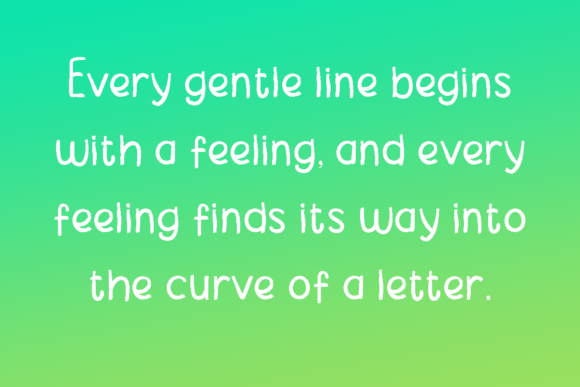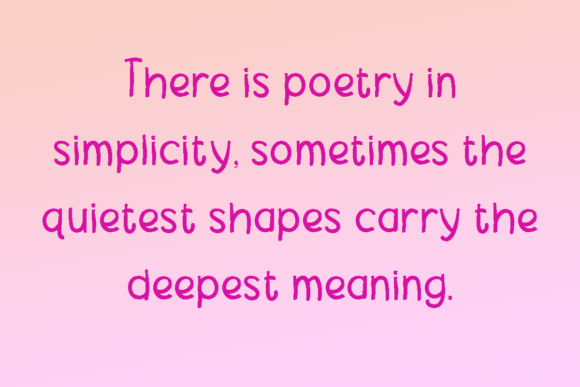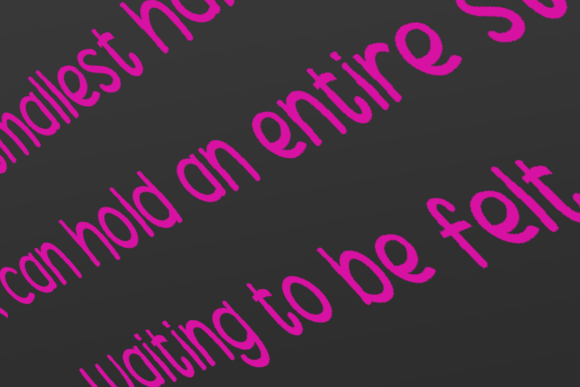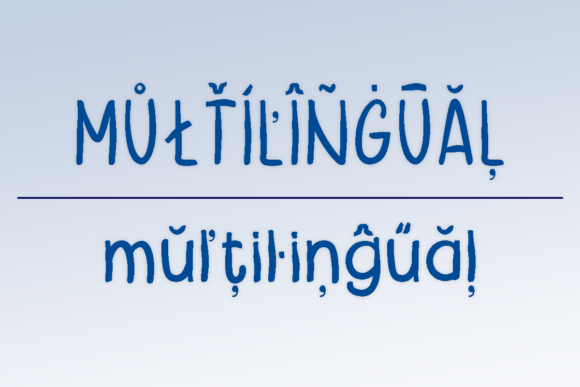
The Perfect Blend of Minimalism and Whimsy
Have you ever stared at a blank page, searching for the perfect font to bring your design to life? It’s a moment we’ve all been there, and it’s a feeling that can be both thrilling and overwhelming. As designers, we’re constantly on the lookout for the perfect combination of style and readability. And that’s where the Bright Flow Font comes in – a beautiful, handcrafted font that’s designed to add a touch of warmth and personality to any design.
With its clean lines and effortless charm, the Bright Flow Font is the perfect choice for designers looking to add a human touch to their work. Whether you’re creating quotes, logos, or social media posts, this font is sure to make every word feel alive and beautifully effortless. Its versatility and unique character make it a valuable addition to any designer’s toolkit, and its modern minimalism ensures that it will never go out of style.
Bright Flow Font Key Features
- Unique Characteristics: Bright Flow Font features a unique blend of modern and elegant design elements, with a focus on readability and versatility
- Font Style: Available in Regular, Italic, Bold, and Bold Italic styles for maximum flexibility
Designer Review: Bright Flow Font
Overall, I’m quite impressed with Bright Flow Font. ✨ The font’s playful, dynamic feel makes it perfect for creative projects, especially those with a youthful or energetic vibe. I love how the font’s flowing lines and rounded edges give it a friendly, approachable quality.
- ✨ Unique and modern design that’s sure to grab attention
- ✨ Excellent for use in titles, headings, and short paragraphs where a bold, playful feel is desired
- ✨ Highly versatile and adaptable to various design styles and themes
- ⚠️ Limited legibility at smaller font sizes, which may make it difficult to read in certain contexts
- ⚠️ Not ideal for formal or professional projects where a more traditional, conservative font is preferred
Overall, I think Bright Flow Font is a great addition to any designer’s toolkit. While it may not be suitable for every project, its unique charm and versatility make it a valuable asset for those looking to add some personality to their designs.
Tips for Getting the Most Out of Bright Flow Font
For optimal results, use Bright Flow Font in bold or italic styles to add emphasis and visual interest. You can also pair it with other fonts to create a unique and eye-catching design.
Bright Flow Font is ideal for use in headings, titles, and other display text where you want to make a bold statement. It’s also great for use in branding and marketing materials, such as logos, business cards, and brochures.
Alternatives to Bright Flow Font for Designers
Great Vibes is a modern, elegant script font perfect for creating a friendly and approachable atmosphere. It is ideal for use in branding, advertising, and packaging design. Great Vibes has a similar flowing feel to Bright Flow Font, but with a more refined and sophisticated appearance.
Pacifico is a beautiful, cursive font with a relaxed and beachy vibe. It is suitable for use in logo design, typography, and other creative projects where a laid-back feel is desired. Compared to Bright Flow Font, Pacifico has a more fluid and organic appearance, making it ideal for designs that require a natural, effortless feel.
Dancing Script is a elegant, handwritten font with a dynamic and expressive feel. It is perfect for use in invitations, greeting cards, and other creative projects where a touch of whimsy is desired. Dancing Script has a more dramatic and playful feel compared to Bright Flow Font, making it ideal for designs that require a sense of movement and energy.
Carolyna Pro is a modern, elegant script font with a sophisticated and refined appearance. It is suitable for use in branding, advertising, and packaging design where a high-end feel is desired. Compared to Bright Flow Font, Carolyna Pro has a more precise and polished appearance, making it ideal for designs that require a touch of luxury and elegance.